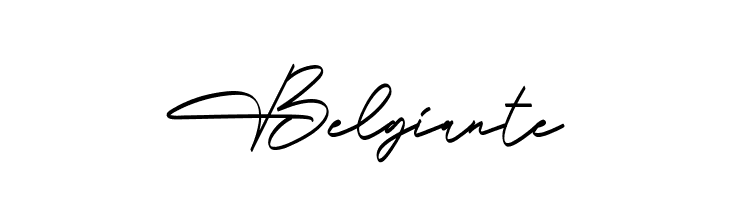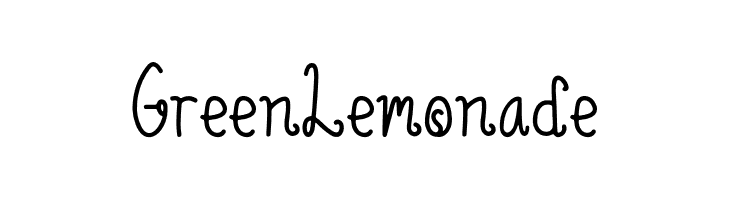
A playful, handwritten font with rounded edges and a casual, friendly appearance.
A lively and dynamic handwritten font with fluid, connected strokes.
A bold, geometric font with sharp angles and a modern, futuristic style.
A bold, geometric typeface with a modern, blocky design.
A fluid, handwritten script font with a modern, signature-like style.
A bold, artistic font with a hand-drawn, whimsical style.
A bold, dramatic Blackletter-style font with high contrast and intricate details.
A whimsical and playful font with curly embellishments and bold characters.
A lively, cursive script font with fluid, connected strokes and a handwritten feel.
A bold, angular font with a modern, edgy design.